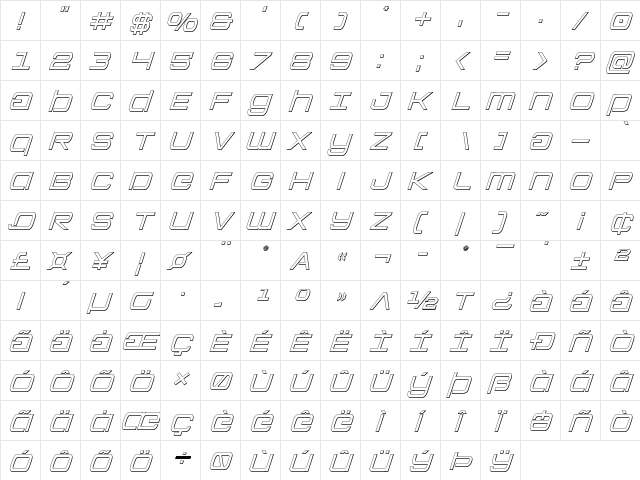
Colony Marines Outline Italic Outline Italic
Design Context for Colony Marines Outline Italic Typeface
Colony Marines Outline Italic brings ornamental detail and strong personality to headlines and identities, where visual impact matters more than quiet functionality. The slanted form adds forward momentum and visual energy.
Font Pairing: Pair with a clean neutral sans-serif for body copy to let Colony Marines Outline Italic's character lead without overwhelming the composition.
Pro Tip: Use Colony Marines Outline Italic exclusively at display sizes — it was designed to be seen, not read at length. Let a neutral companion handle body copy.